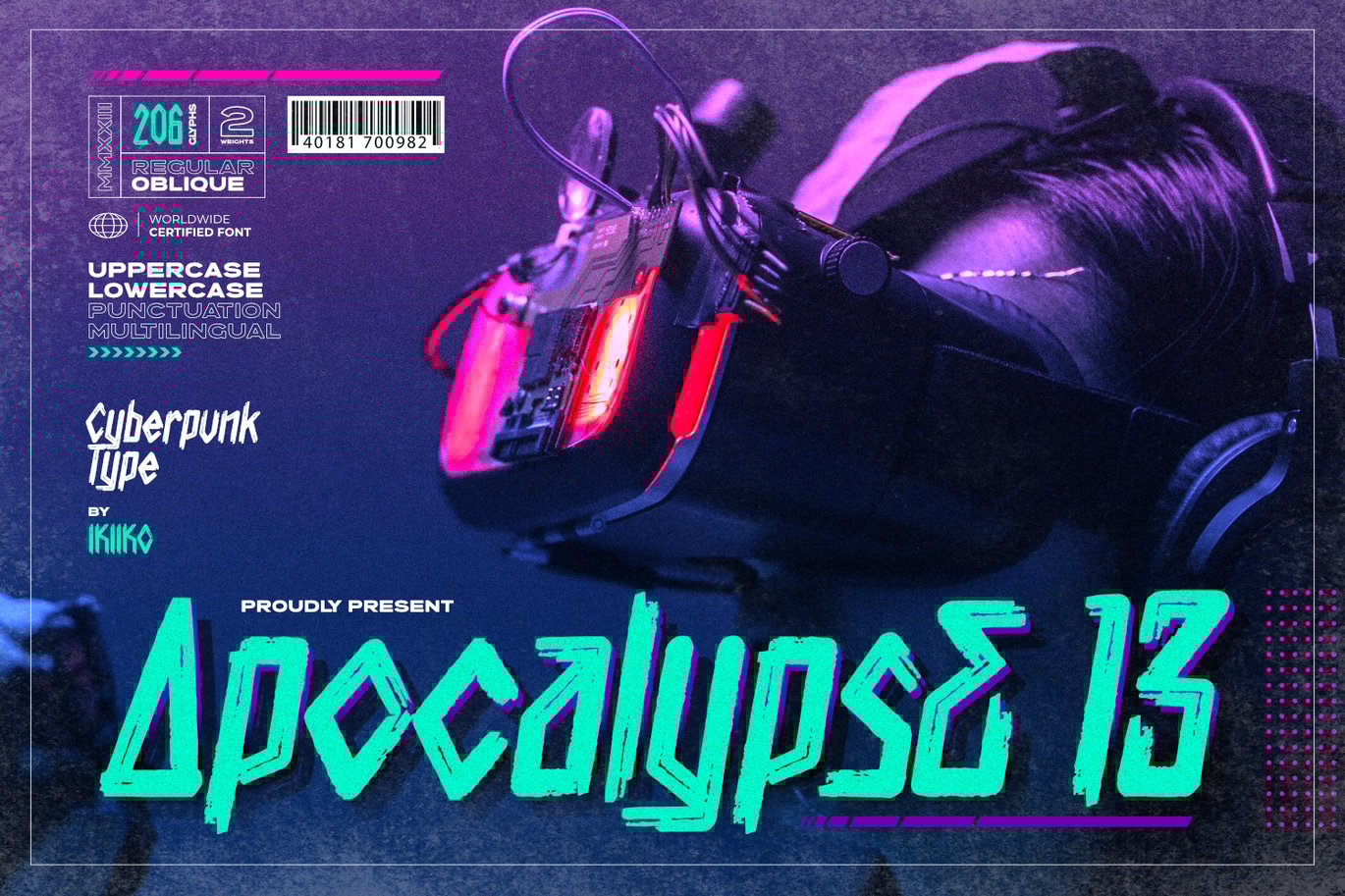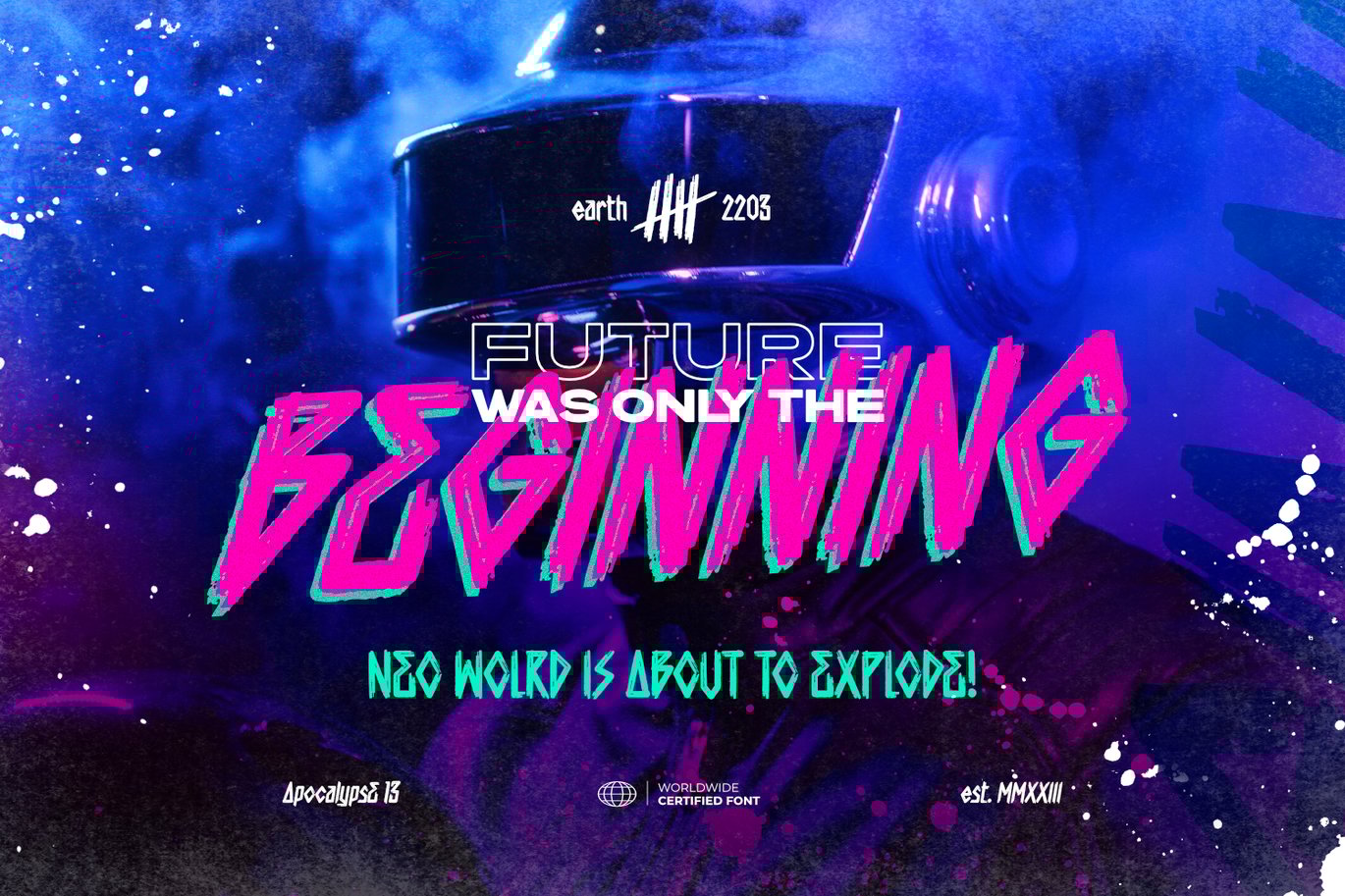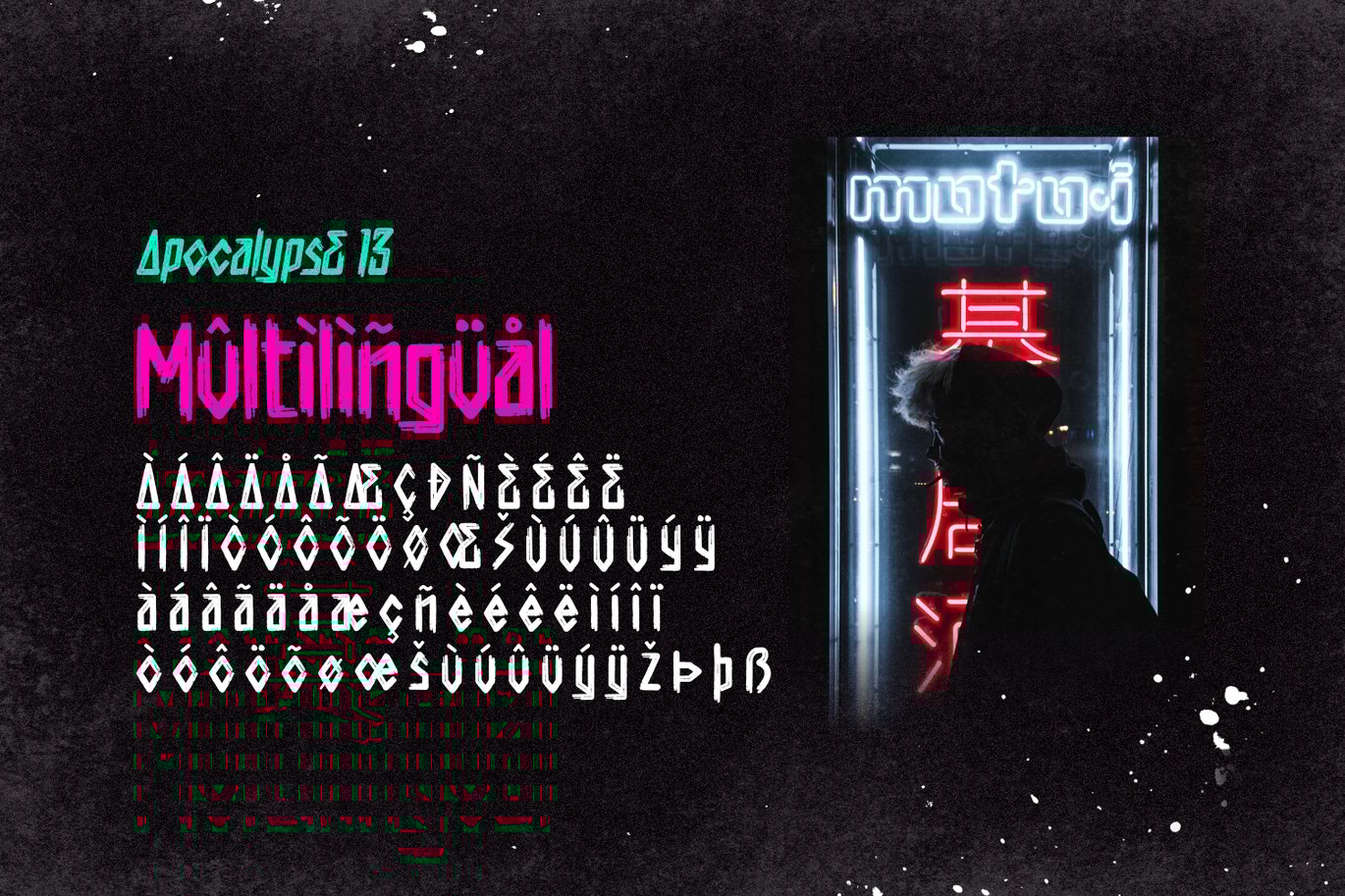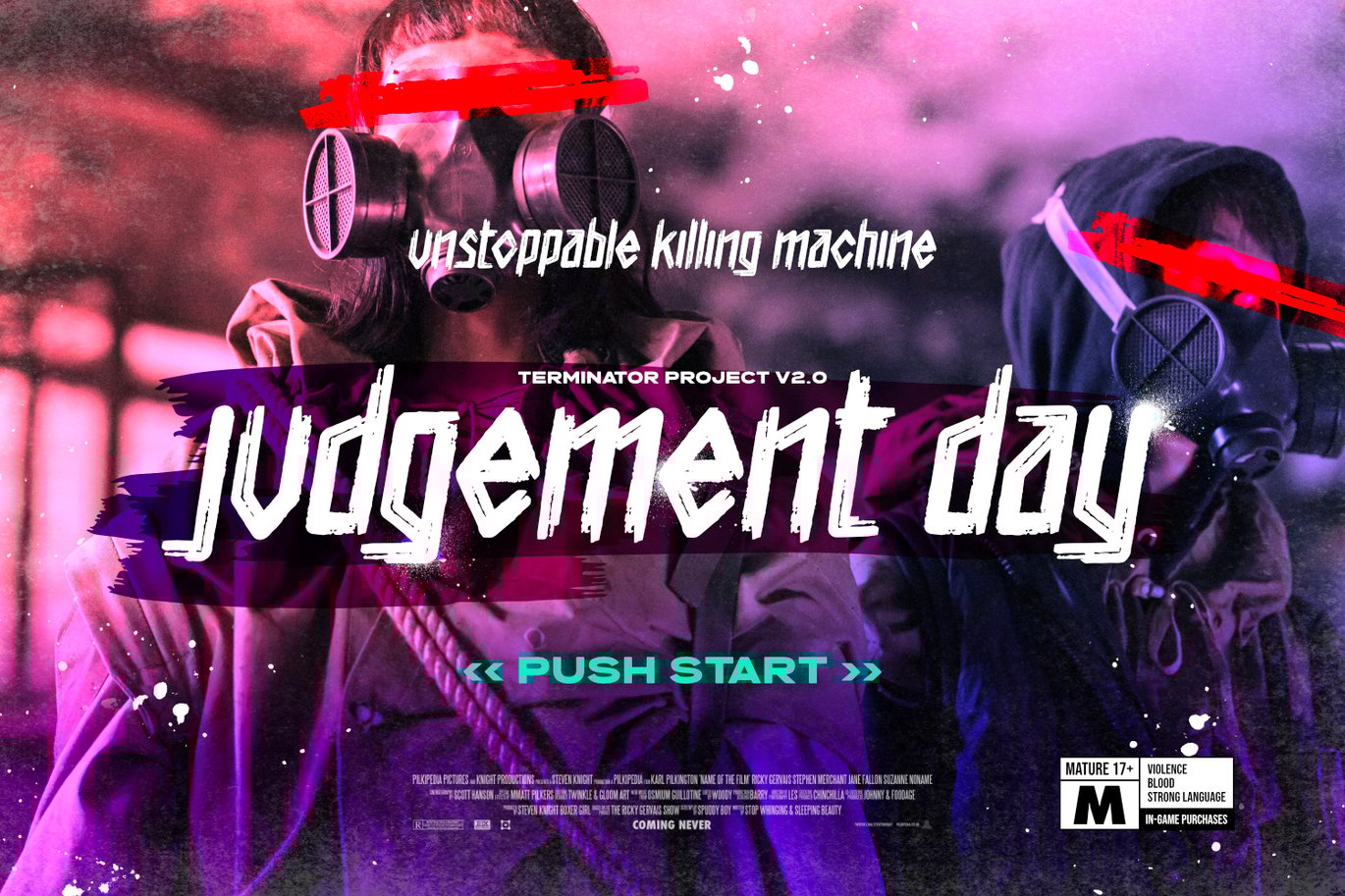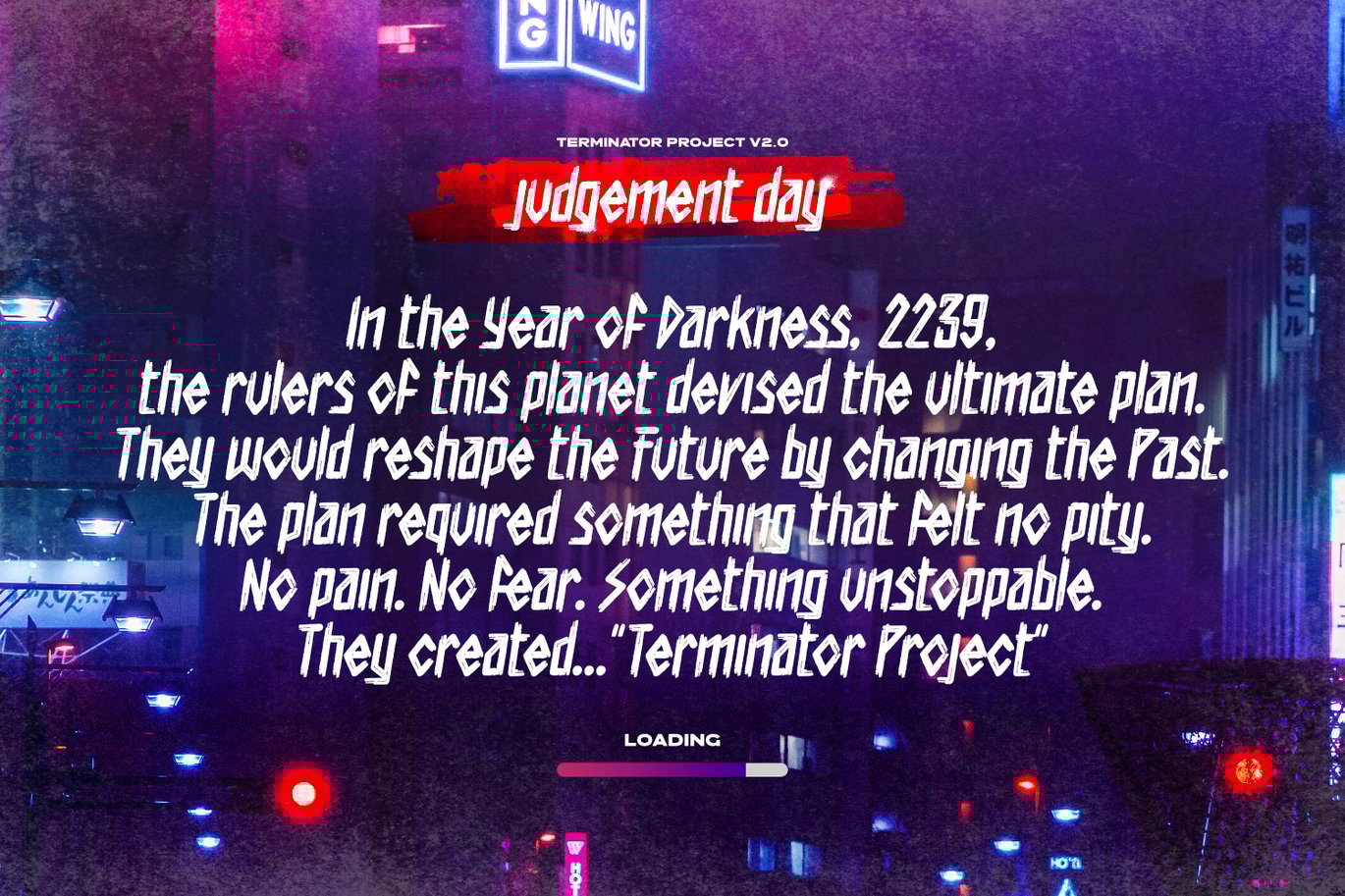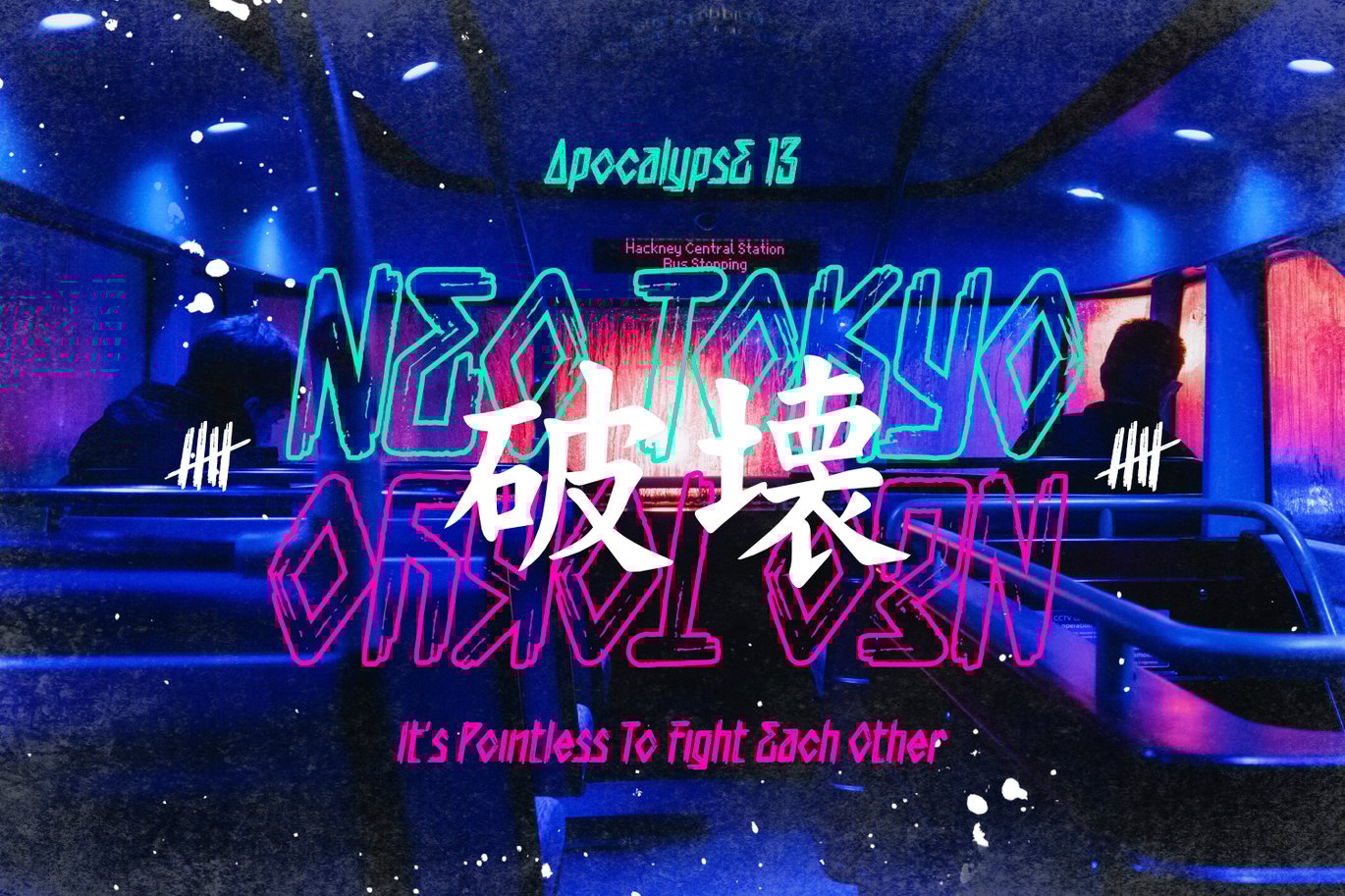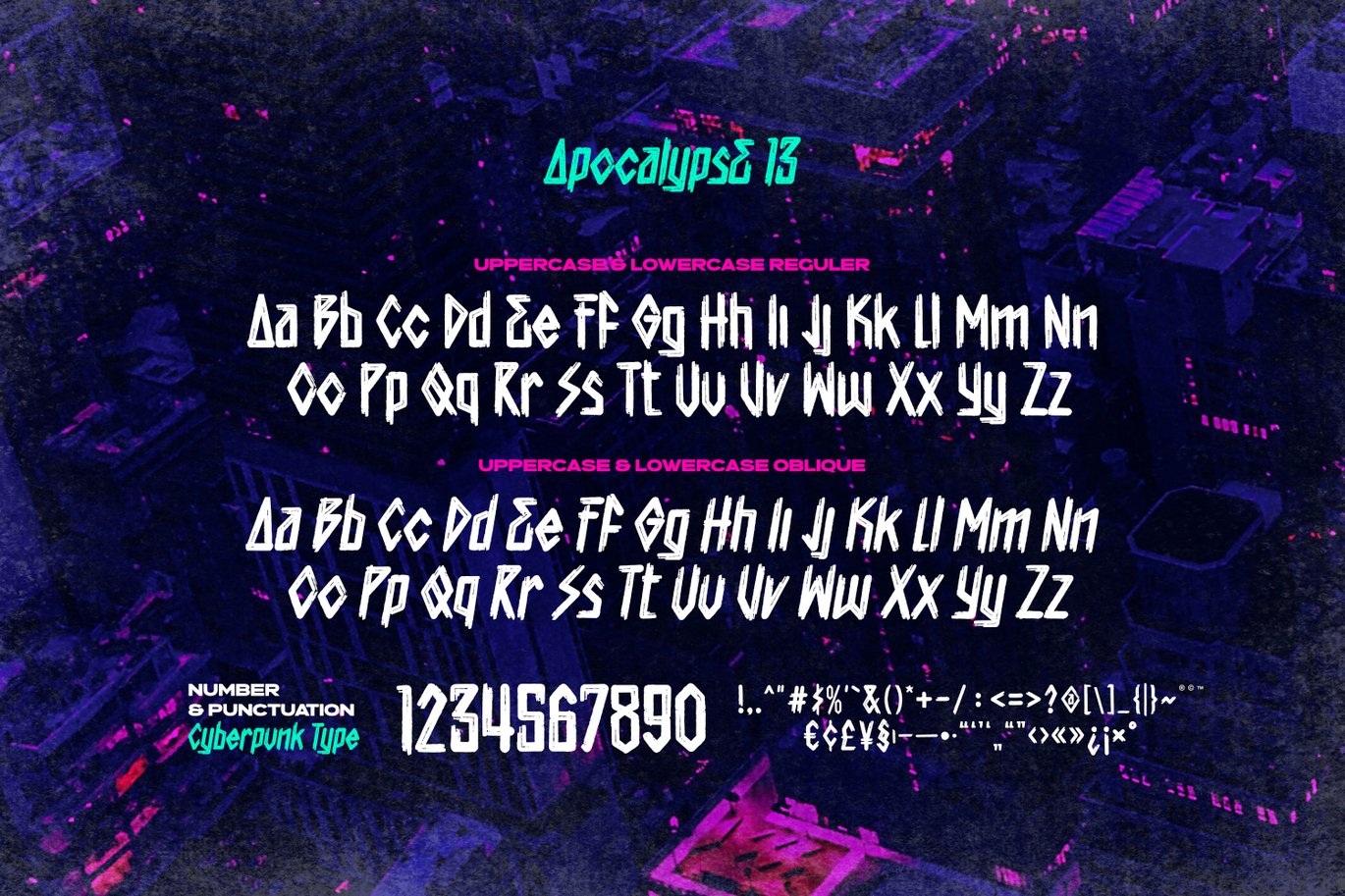
Apocalypse 13 – Cyberpunk Font
Proudly Present Apocalypse 13 – Cyberpunk Font, created by ikiiko
With its gritty and edgy design, the explosive cyberpunk brush typeface Apocalypse 13 perfectly portrays the feel of a dystopian future. This typeface was created to transport you to the pitch-black, neon-lit streets of a cybernetic metropolis. It is the ideal fusion of technical grit and artistic expression.
Each character in Apocalypse 13 is painstakingly created, using jagged edges and strong brushstrokes to evoke a sense of urgency and defiance. The letters suggest a world that is on the verge of anarchy because they look like they were spray painted on a collapsing concrete wall.
- 2 Weights : Regular & Oblique